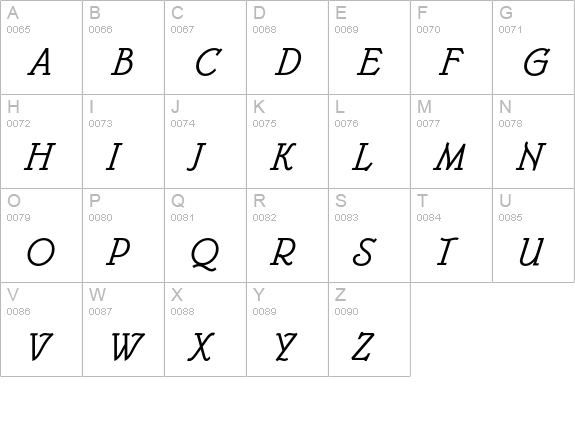
Belwe Mono Std Italic Font Details
Belwe Mono Std Italic is a distinctive, italic variant in the Belwe typeface family \xE2\x80\x94 well suited to design and typography projects.
Belwe Mono Std Italic is a stylish and elegant font that brings a modern touch to any design project. Its slanted and sleek appearance adds a touch of sophistication, making it perfect for use in various creative applications. This italic version of the Belwe Mono Std font is designed to stand out and make a statement. With its unique and eye-catching style, it is sure to capture the attention of your audience. Whether you are working on a branding project, a website design, or a print advertisement, Belwe Mono Std Italic will elevate your work to the next level. Best of all, Belwe Mono Std Italic is available for free download at FontsMarket.com. This means you can easily access this high-quality font and use it in your projects without any cost. So why wait? Add Belwe Mono Std Italic to your font collection today and let your creativity shine.